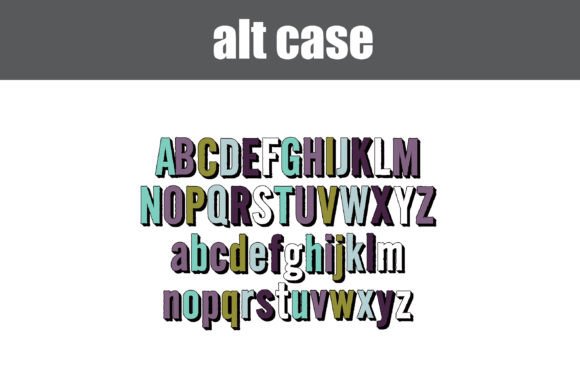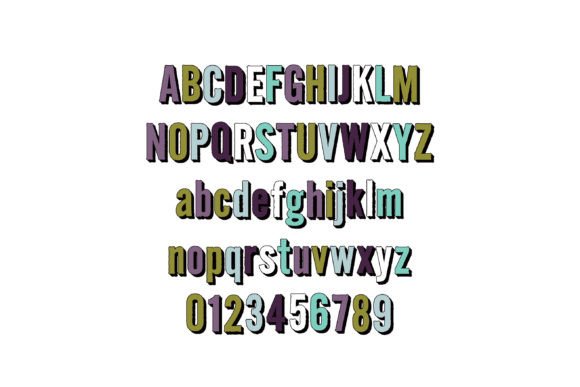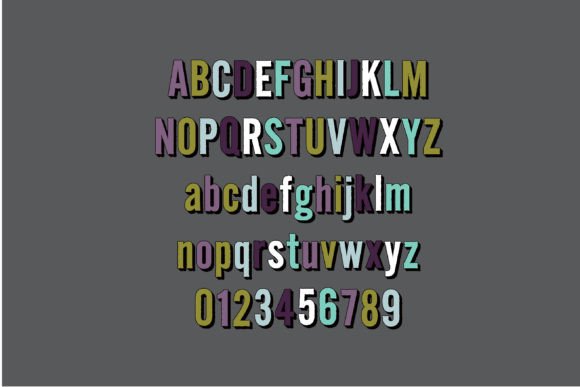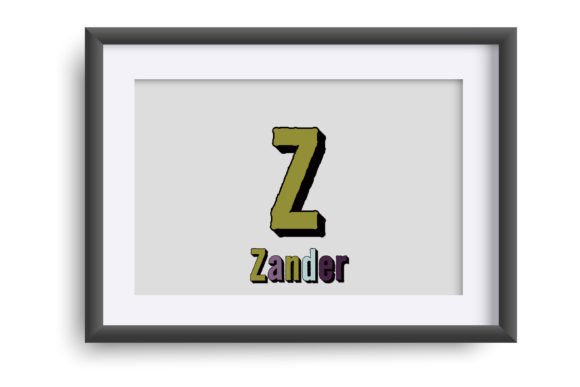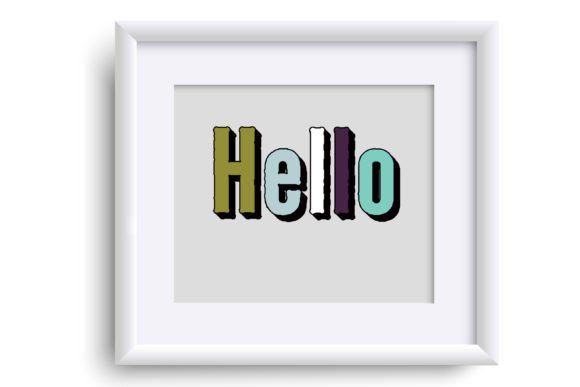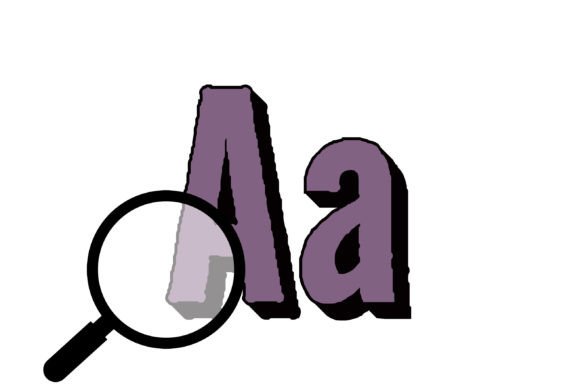
Introducing the Good Father Font: A Masculine and Versatile Full-Color Font
Are you looking for a font that can add a touch of masculinity and sophistication to your designs? Look no further than the Good Father Font, a textured, 3D sans serif font that is perfect for titles, displays, posters, and more. This full-color font features a unique and eye-catching color palette that is sure to make your designs stand out.
Key Features of the Good Father Font
- Textured, 3D sans serif font: The Good Father Font features a unique textured, 3D effect that gives it a rugged and masculine look.
- Full-color font: This font is a full-color font, which means it can display a wide range of colors and gradients, making it perfect for designs that require a pop of color.
- Alt case with additional colors: The font also features an alt case with additional colors that can be accessed through your system or Silhouette’s glyph map.
Tips and Tricks for Using the Good Father Font
Here are some tips and tricks for using the Good Father Font:
- Experiment with different colors: The Good Father Font features a range of colors, so experiment with different colors to find the one that works best for your design.
- Use it for titles and displays: The Good Father Font is perfect for titles and displays, so use it to add a touch of sophistication and masculinity to your designs.
- Combine it with other fonts: The Good Father Font can be combined with other fonts to create a unique and eye-catching design.
The Good Father Font is a versatile and powerful font that is perfect for designers and crafters who want to add a touch of masculinity and sophistication to their designs. With its textured, 3D effect and full-color capabilities, this font is sure to make your designs stand out. Whether you’re creating titles, displays, posters, or more, the Good Father Font is a great choice.